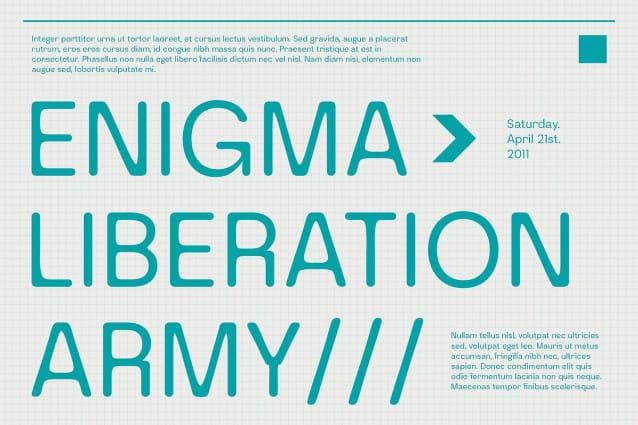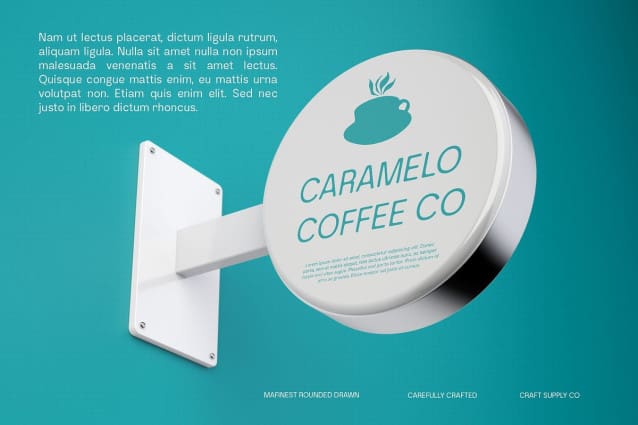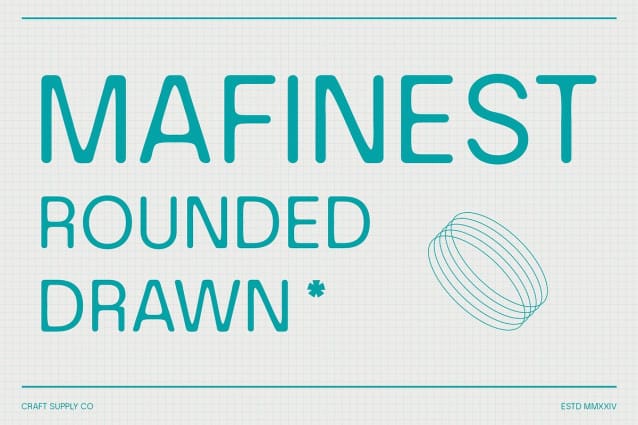
Mafinest Rounded Drawn Font
Mafinest Rounded Drawn Font is a modern sans serif font characterized by its grotesque structure and rounded shapes, enhanced by a drawn effect that adds an organic, handcrafted feel. This unique combination of clean lines and artistic detailing creates a bold yet approachable design, perfect for contemporary creative projects.
Rounded Letterforms for a Friendly and Contemporary Feel With its soft, rounded letterforms, Mafinest evokes a sense of friendliness and warmth while maintaining a sleek, modern appearance. The gentle curves provide a welcoming aesthetic, ideal for branding, packaging, and editorial layouts where an inviting and professional tone is essential.
Drawn Effect for Artistic and Handcrafted Nuance The subtle drawn effect gives Mafinest a handcrafted, organic touch, adding personality and character to the design. This detail enhances its visual appeal, making it perfect for creative designs that need a balance between modern professionalism and artistic expression. It’s particularly well-suited for promotional materials that aim to stand out with a unique, handcrafted look.
Versatility Across Design Applications This rounded drawn font’s combination of modern sans serif shapes and artistic drawn elements makes it highly versatile. It works beautifully across various applications, from logos and branding to editorial design and digital content.